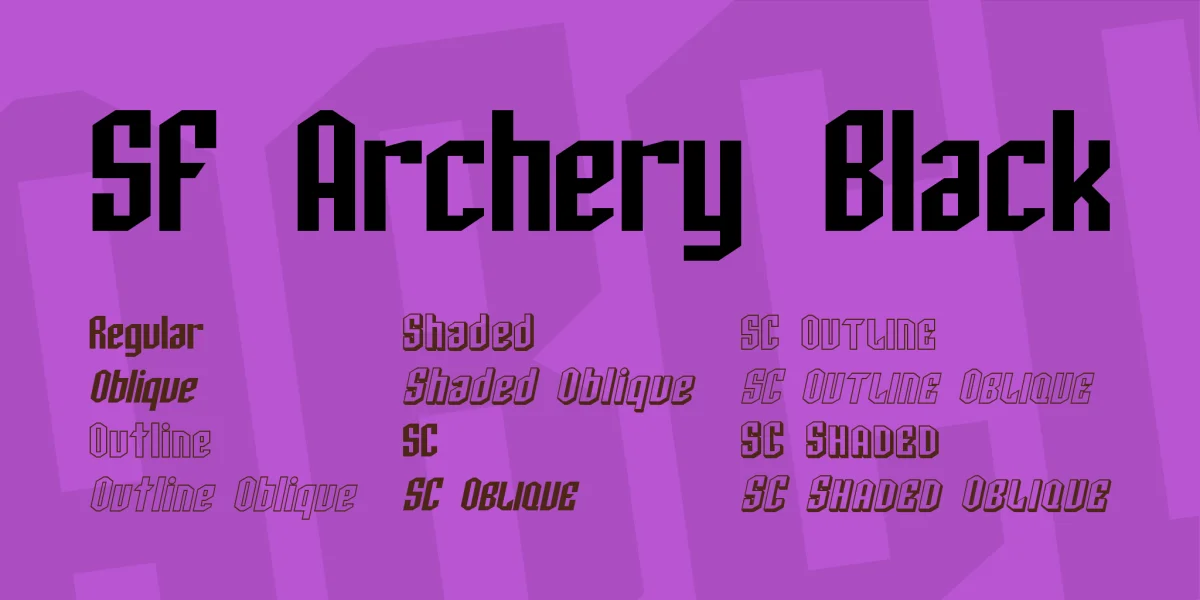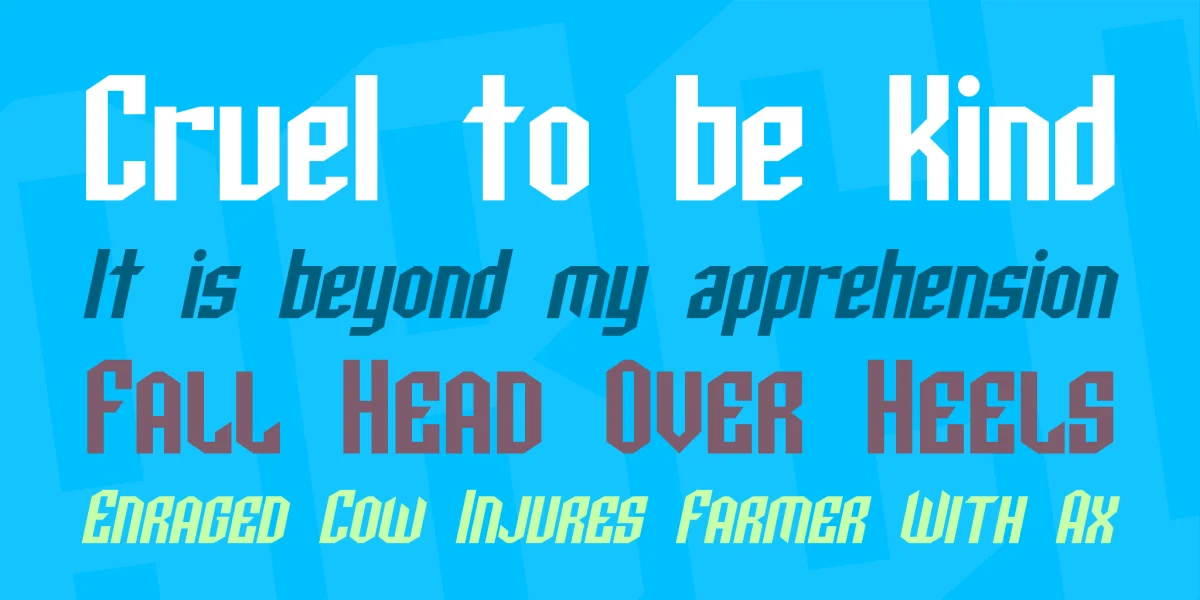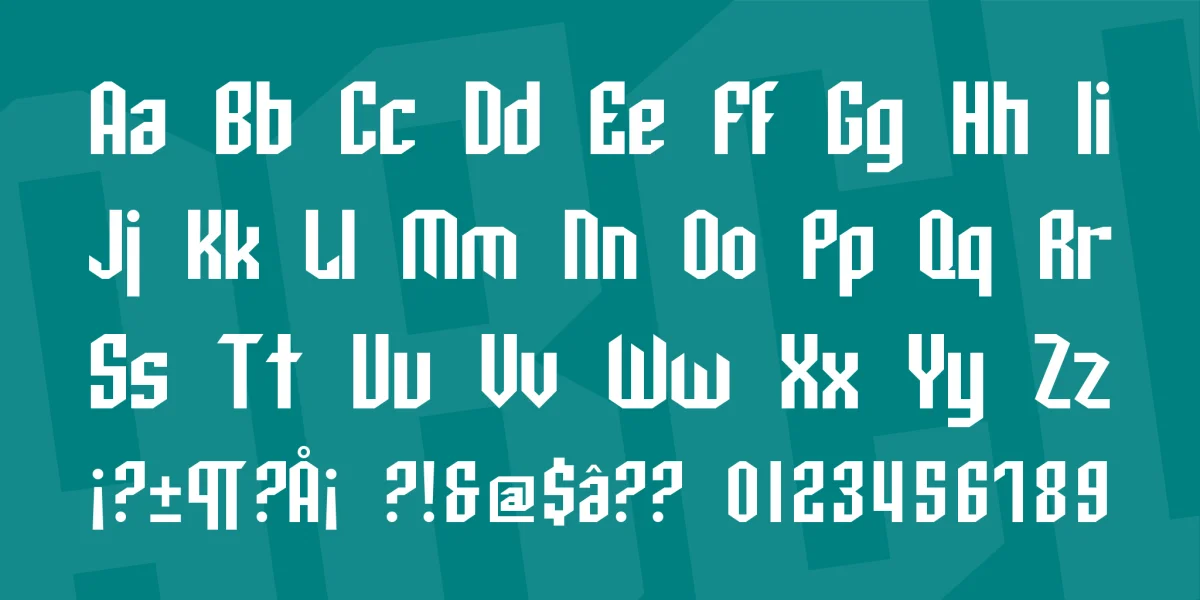
A blocky, bold typeface that was carved right out of an old oak tree, SF Archery Black contains lowercase and uppercase letters, numbers, punctuation, and accented characters.